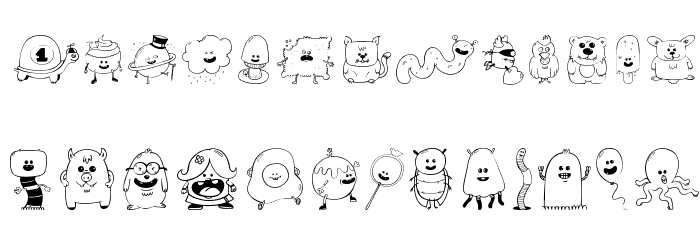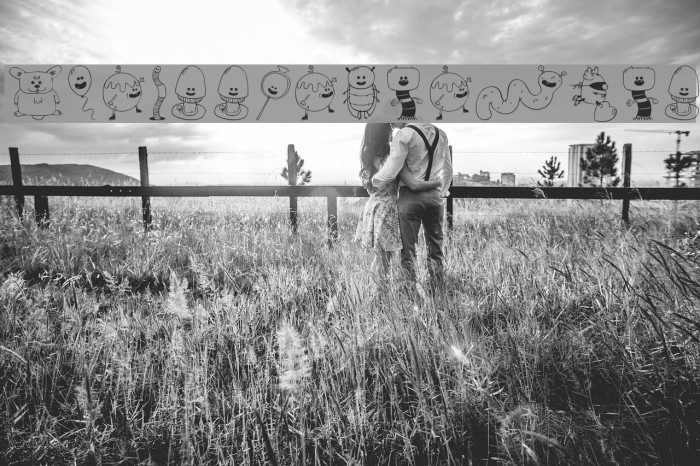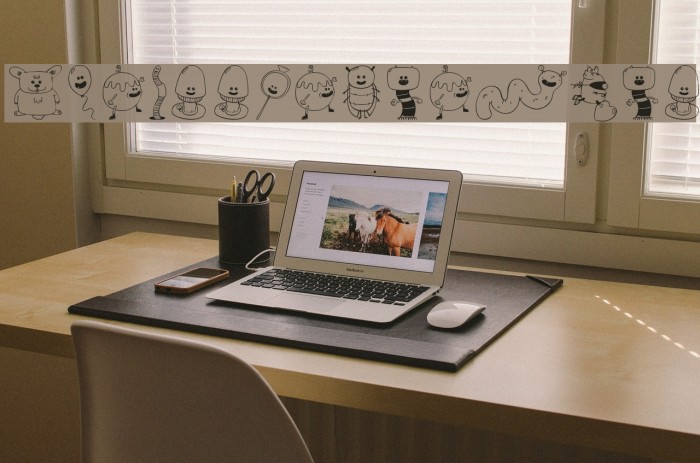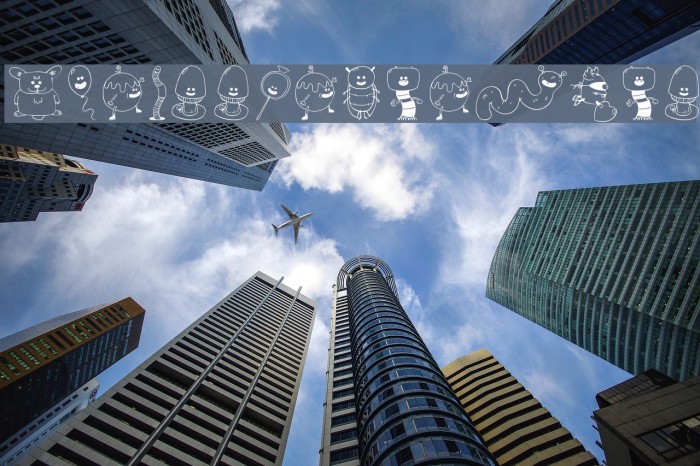
My Sweet Sunshine Font
This whimsical and playful font is characterized by its unique and charming cartoon-like characters. Each letter is represented by a distinct, adorable creature or object, giving it a highly decorative and imaginative appearance. The font is designed to bring a sense of fun and creativity, making it ideal for projects that require a lighthearted and engaging visual element. The characters are detailed with expressive faces and quirky features, adding to the overall charm and appeal. This font is perfect for children's books, playful branding, or any project that aims to evoke joy and creativity.
A whimsical and playful font featuring cartoon-like characters for each letter.
- Font: My Sweet Sunshine
- Proposed Projects: Children's books, playful branding, greeting cards, educational materials, and creative posters.
- Overall Style: Playful and Whimsical
- Use Case: Decorative headlines, children's materials, creative projects.